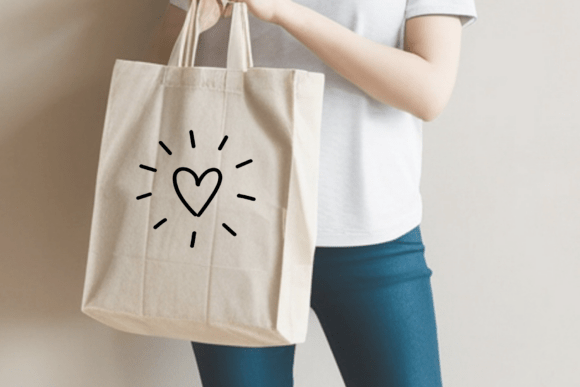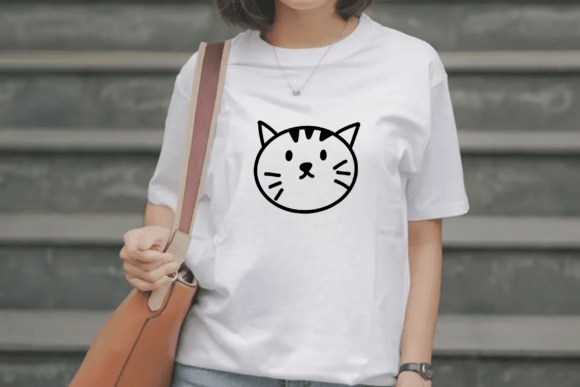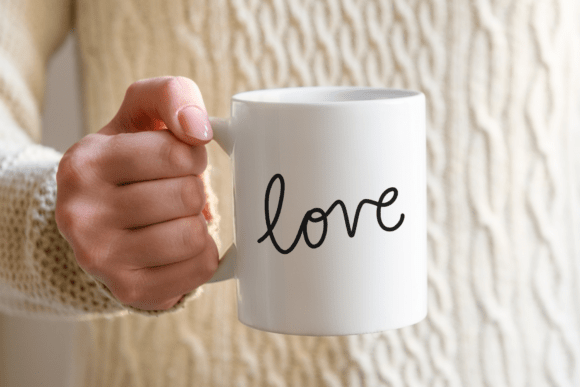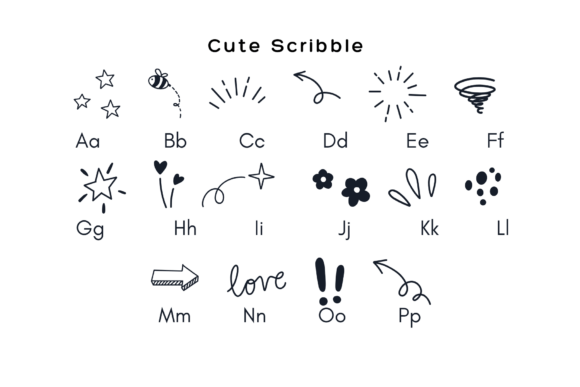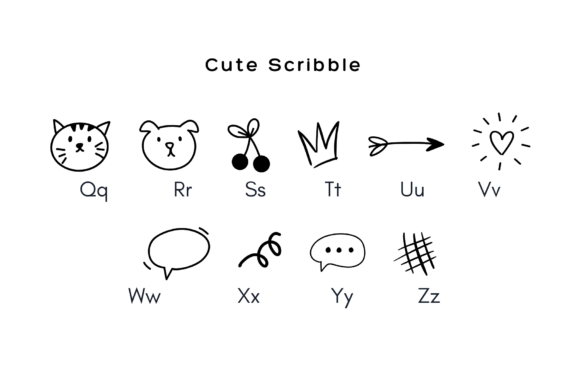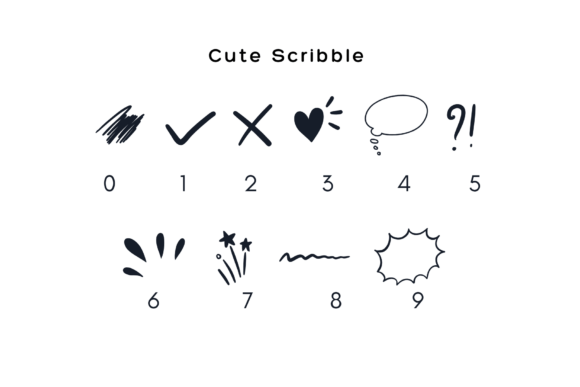
Discover the Playful World of Cute Scribble Doodle Font
Have you ever been in the middle of a design project, and suddenly, you just can’t find the right font to bring your vision to life? I remember a recent experience where I was working on a fun, whimsical invitation for a friend’s birthday party. I wanted something that screamed playfulness and creativity, but my usual go-to fonts just weren’t cutting it. That’s when I stumbled upon the Cute Scribble Doodle Font, and it completely transformed my design!
What Makes Cute Scribble Doodle Font So Special?
This adorable font is a collection of hand-drawn doodles, kawaii icons, speech bubbles, arrows, stars, hearts, and fun sketch elements. It’s perfect for a wide range of creative projects, including planners, journals, stickers, scrapbooking, Cricut, sublimation, social media designs, and DIY crafts. The Cute Scribble Doodle Font adds a trendy aesthetic touch to invitations, branding, printable projects, and creative digital designs.
- ✨ The font is incredibly versatile, with a wide range of doodle elements that can be used in various design contexts.
- ✅ The hand-drawn feel is perfect for creating a personal, whimsical touch in designs.
- 🎉 It’s great for adding a playful, trendy vibe to projects.
- 💻 The font is easy to use and works well across different design platforms.
- 🤔 Some of the doodle elements can be quite intricate, which might make them difficult to use at very small sizes.
- ⚠️ As with any dingbat font, you’ll need to get familiar with the glyphs panel to access all the doodle elements.
The Cute Scribble Doodle Font was created with the intention of bringing a playful, creative touch to design projects. The designer, inspired by the world of doodling and kawaii art, aimed to create a font that would make users feel like they’re adding their own personal touch to their designs. Whether you’re a professional designer or a crafty hobbyist, this font is sure to spark your creativity.